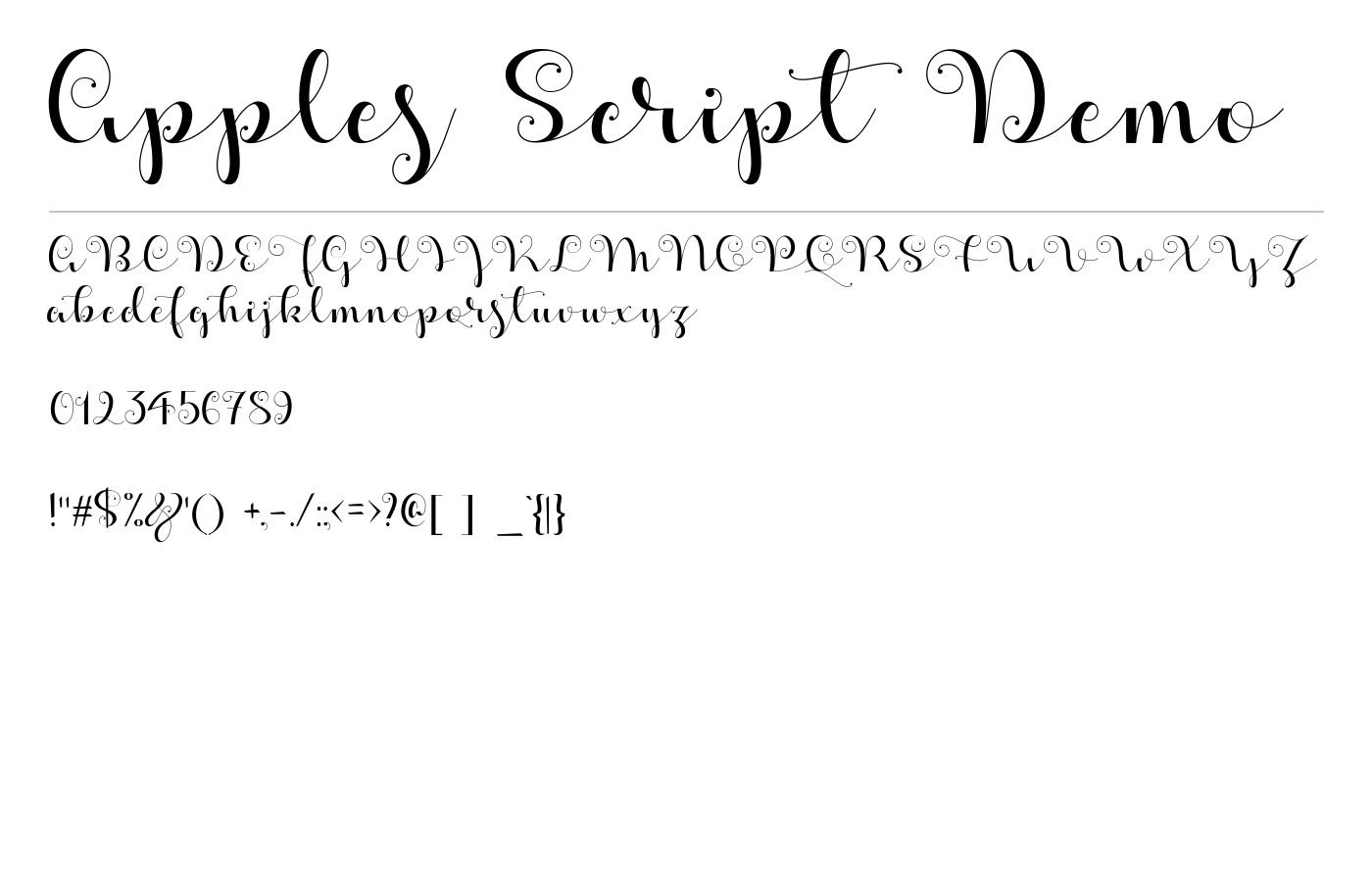
Apples Script Demo is an elegant and decorative script font featuring delicate, flowing strokes and intricate swirls that evoke a sense of sophistication and charm. Its thin weight and high contrast between thick and thin lines create a graceful and airy feel, making it ideal for invitations, branding, and any design that seeks a romantic or classic touch. This font works best in large sizes where its ornamental details can shine, lending a luxurious and stylish personality to creative projects.
Apples Script Demo Font
About Apples Script Demo Font
| Font family | Apples Script Demo Font |
| Designer | Misti's Fonts |